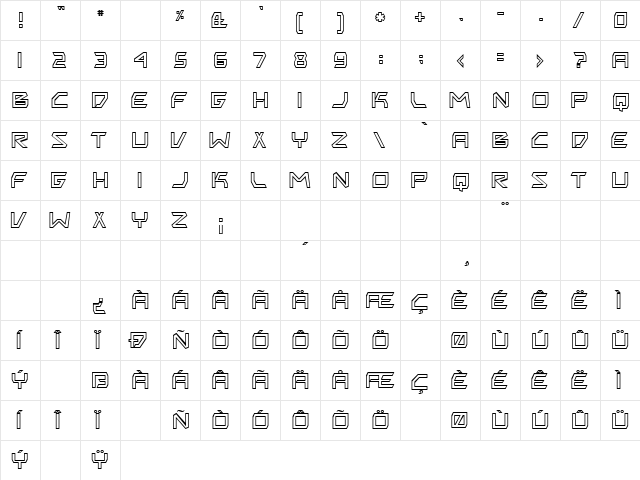
Biting My Nails Outline Regular
Design Context for Biting My Nails Outline Typeface
Biting My Nails Outline brings ornamental detail and strong personality to headlines and identities, where visual impact matters more than quiet functionality.
Font Pairing: Pair with a clean neutral sans-serif for body copy to let Biting My Nails Outline's character lead without overwhelming the composition.
Pro Tip: Treat Biting My Nails Outline as the centrepiece of your typographic hierarchy. One strong heading set in a decorative face can carry an entire layout.